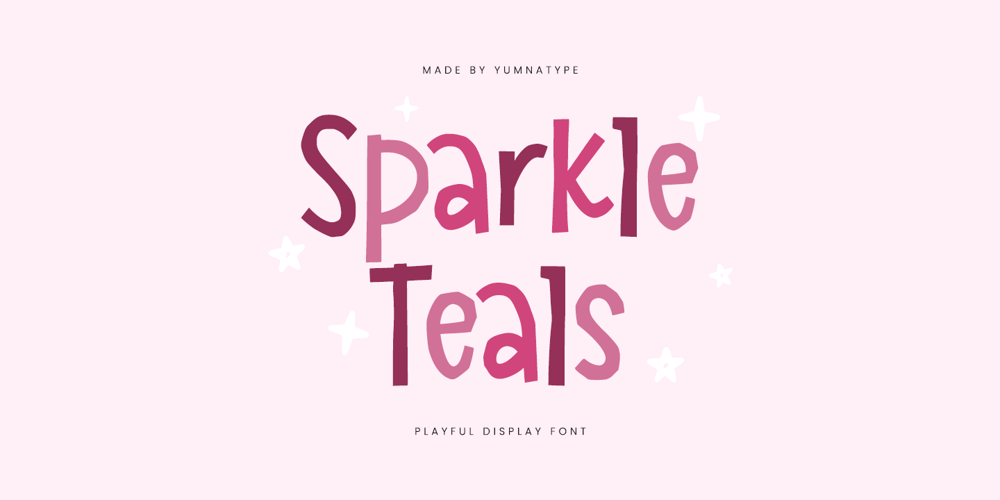
Louvey Brown
Louvey Brown font
Louvey Brown Font Family was designed by Donis Miftahudin and published by Yumna Type. Louvey Brown contains 1 styles and family package options. Sparkle Teals is a lively display font that adds a touch of whimsy and fun to your designs. The playful style of Sparkle Teals brings a sense of joy and excitement to your text. Each letter is designed with rounded shapes, giving the font a soft and friendly appearance that is inviting and approachable.Despite its weight not being thick, Sparkle Teals maintains a bold presence that commands attention. The non-identical proportions of the letters add a sense of movement and spontaneity, creating a dynamic texture that adds visual interest to your designs. In addition, enjoy the features here.Features: Ligatures Multilingual Supports PUA Encoded Numerals and Punctuations Sparkle Teals fits in headlines, logos, posters, flyers, branding materials, greeting cards, print media, editorial layouts, and many more designs. Find out more ways to use this font by taking a look at the font preview.Thanks for purchasing our fonts. Hopefully, you have a great time using our font. Feel free to contact us anytime for further information or when you have trouble with the font. Thanks a lot and happy designing.